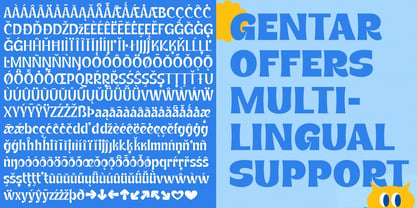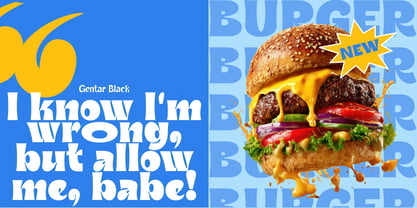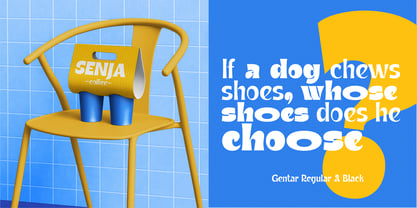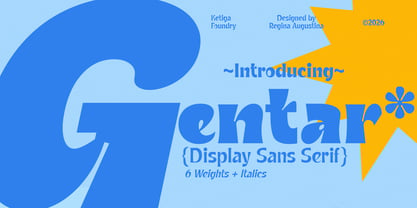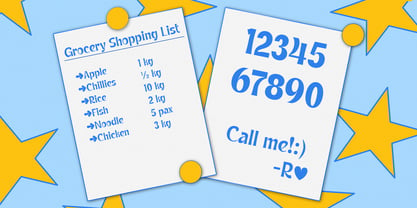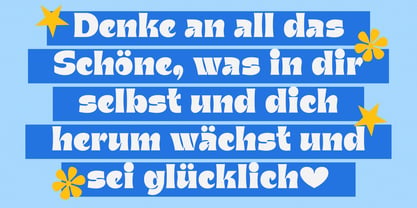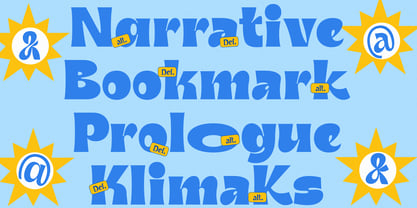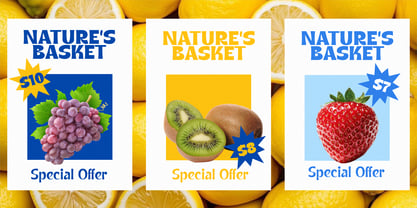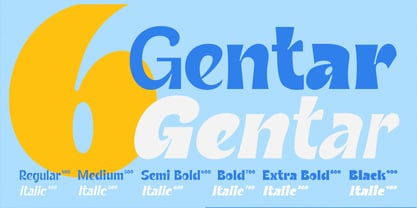
Gentar
von Ketiga Foundry
Die Schriftfamilie Gentar wurde von Reginaa Augustina entworfen und von Ketiga Foundry veröffentlicht. Gentar enthält 12 Stile und Familienpaketoptionen. Mehr über diese Familie
Gentar is a bold and expressive display typeface that seamlessly blends retro influences with a playful, modern attitude. This complete family features 6 weights ranging from Regular to Black, along with matching italics, offering a versatile range of expression—from clean and approachable to heavy and attention-grabbing. The Regular weight ensures balanced readability infused with subtle personality, while the heavier styles deliver a strong visual impact characterized by chunky shapes and a confident presence. Gentar is defined by its curved forms, dynamic proportions, and distinctive details, bringing a lively rhythm to any layout. Its organic letterforms are rich in character, making it ideal for designs that require warmth, energy, and individuality. The italics are expertly crafted to add motion and emphasis, enhancing your typography with a dynamic and engaging voice. Perfect for branding and logo design, posters and headlines, packaging and merchandise, as well as social media and campaign visuals, Gentar is not just a typeface—it’s a powerful statement tool for designers looking to make their work stand out with confidence and style.
Designer: Reginaa Augustina
Foundry: Ketiga Foundry